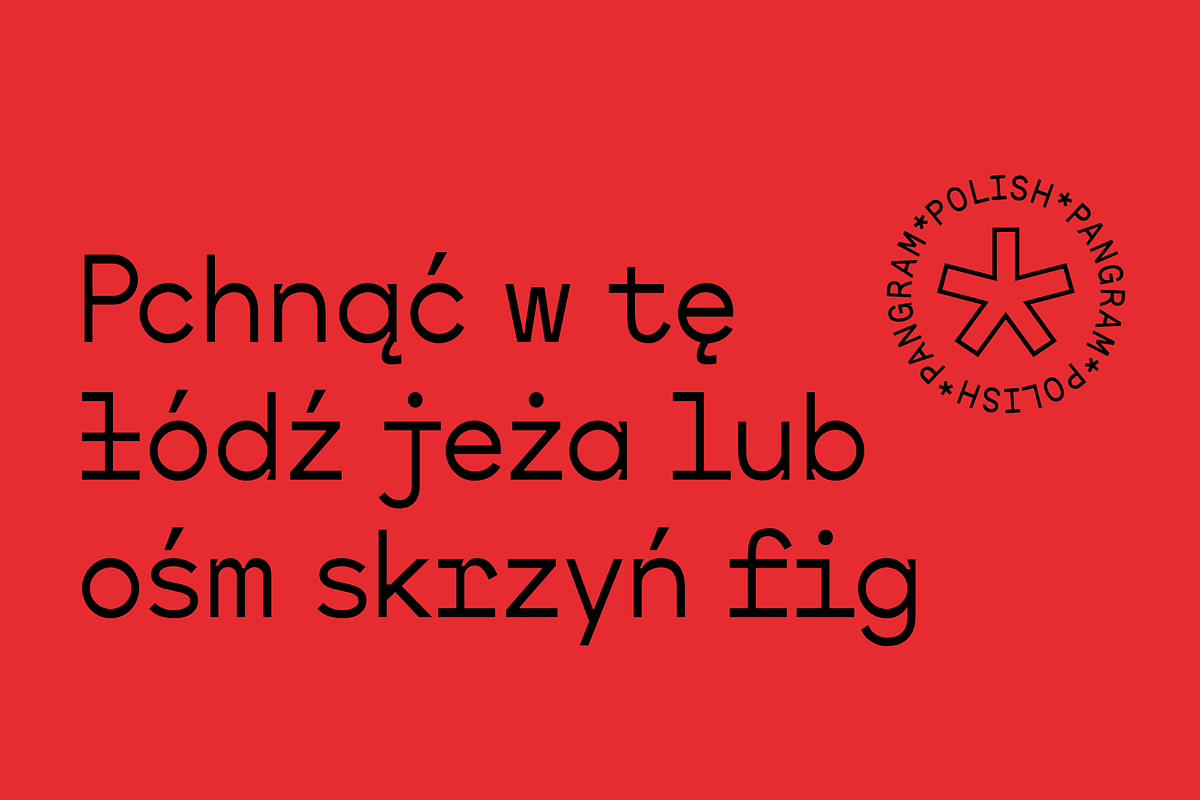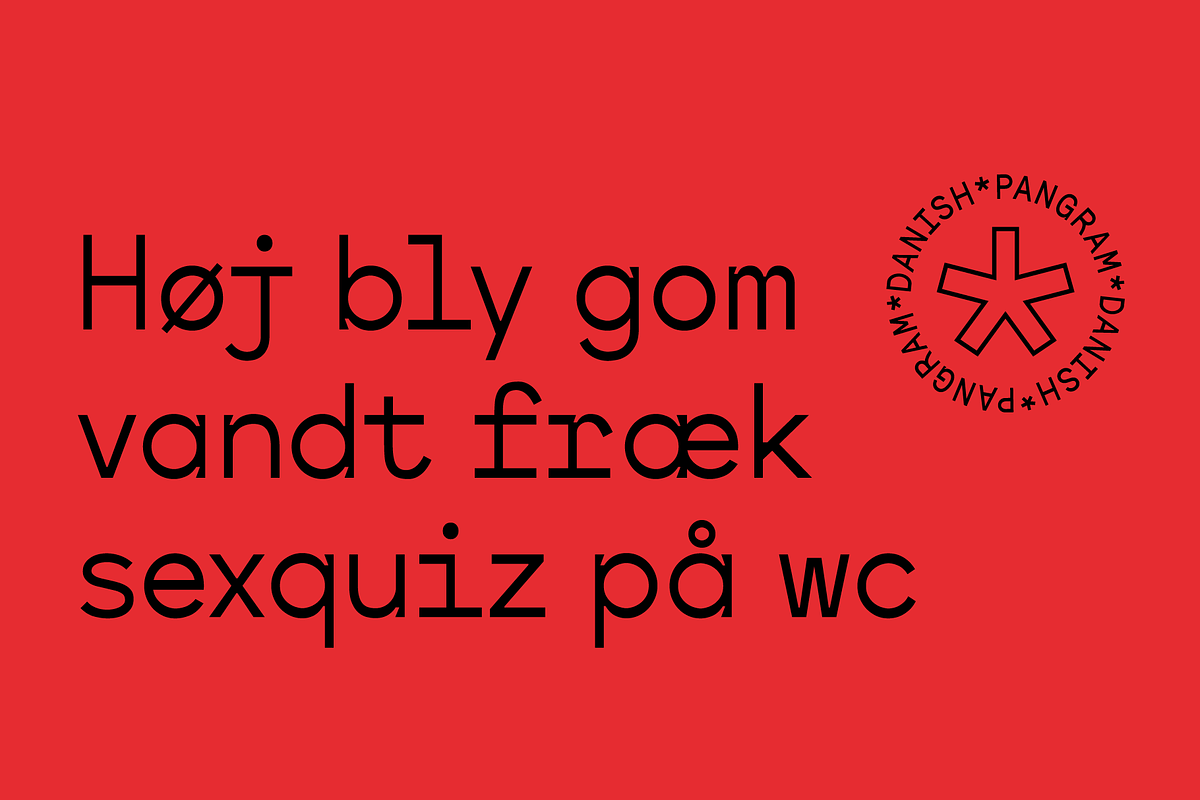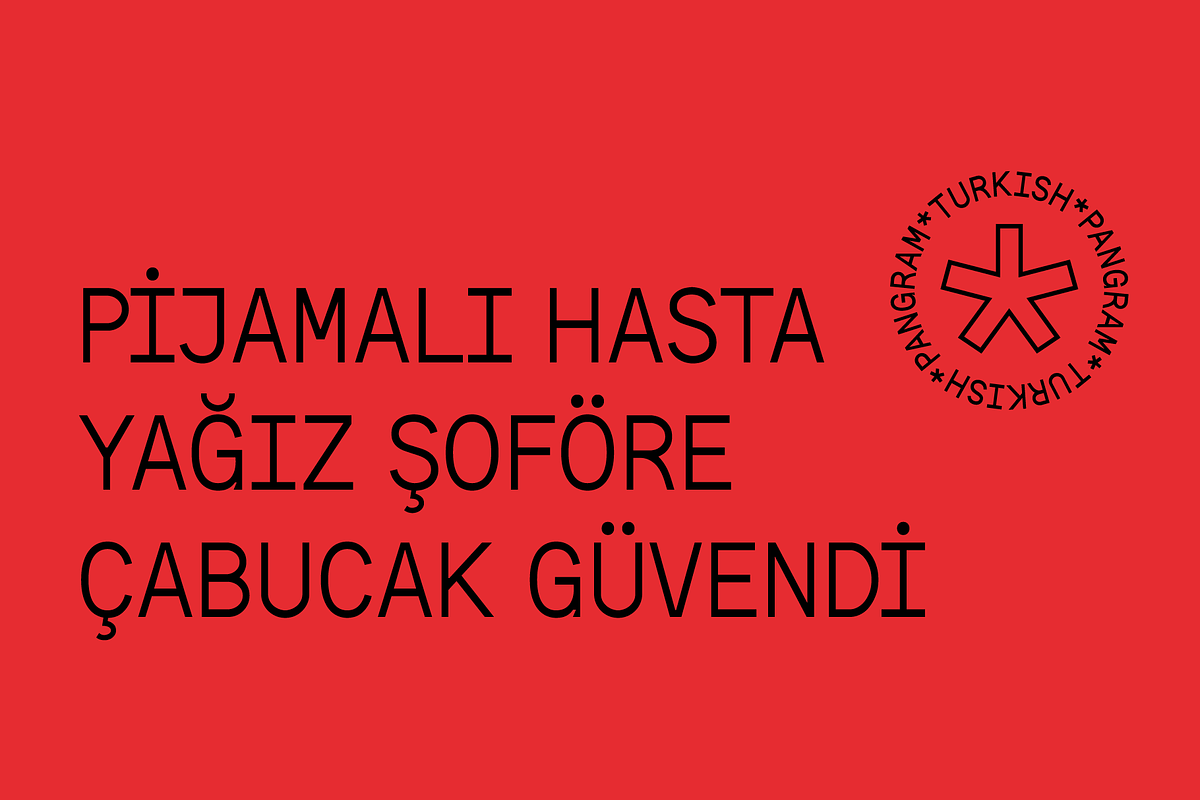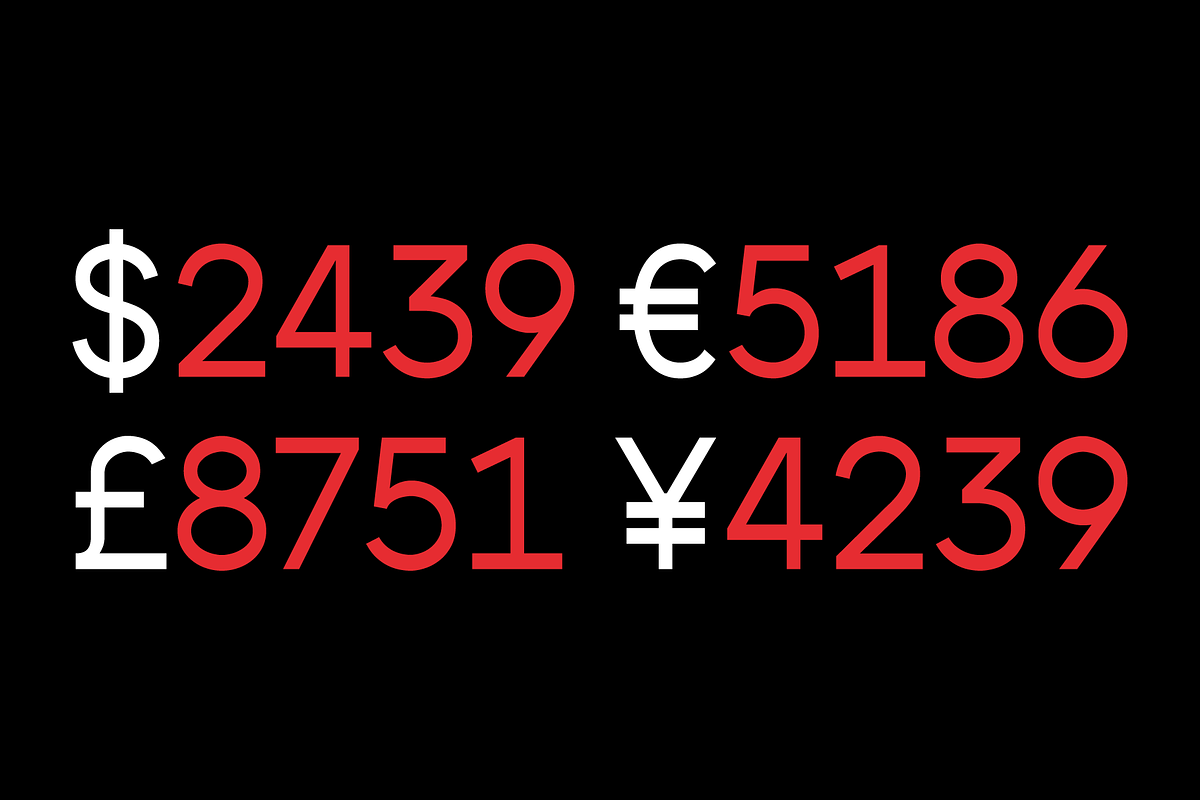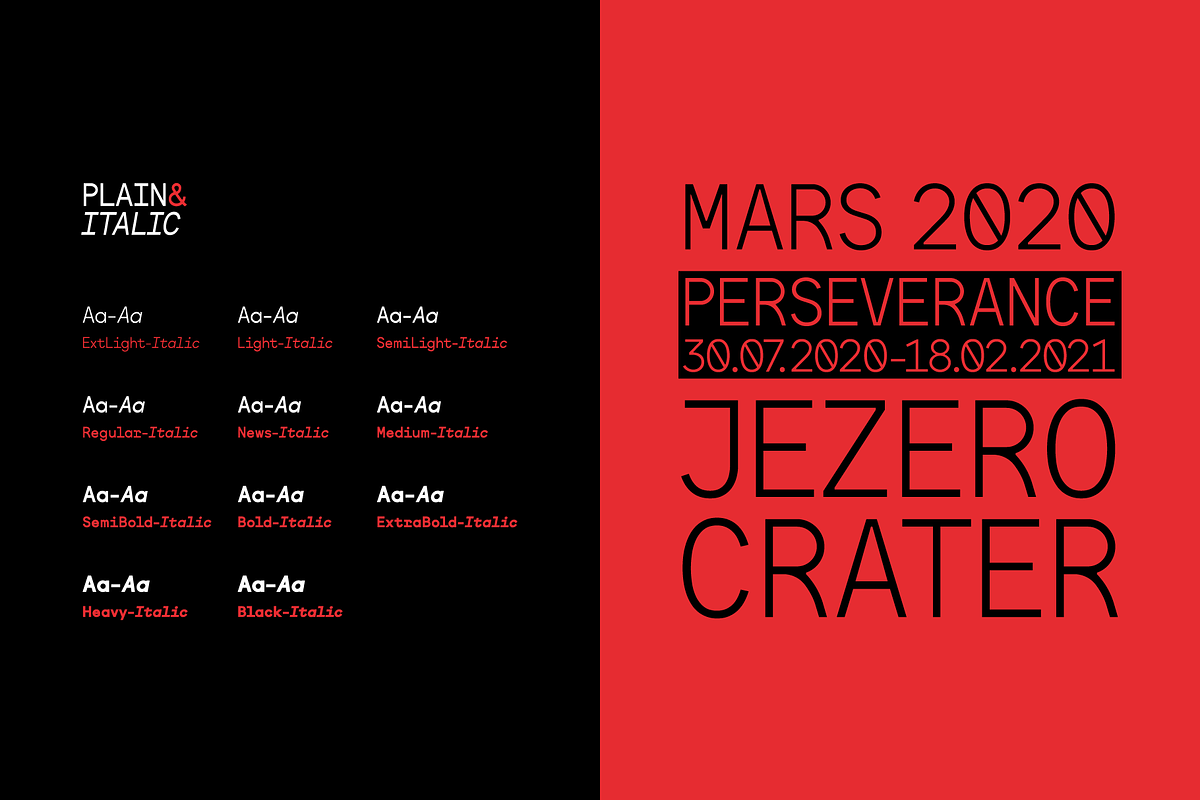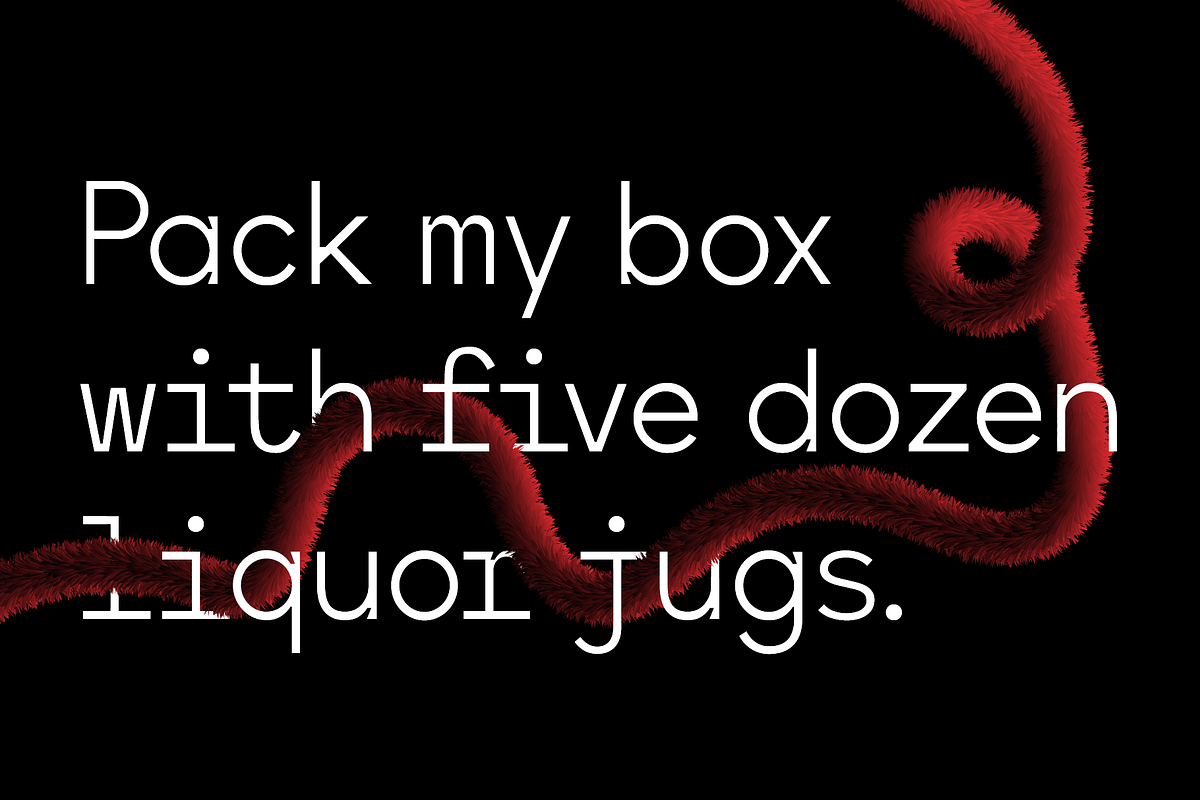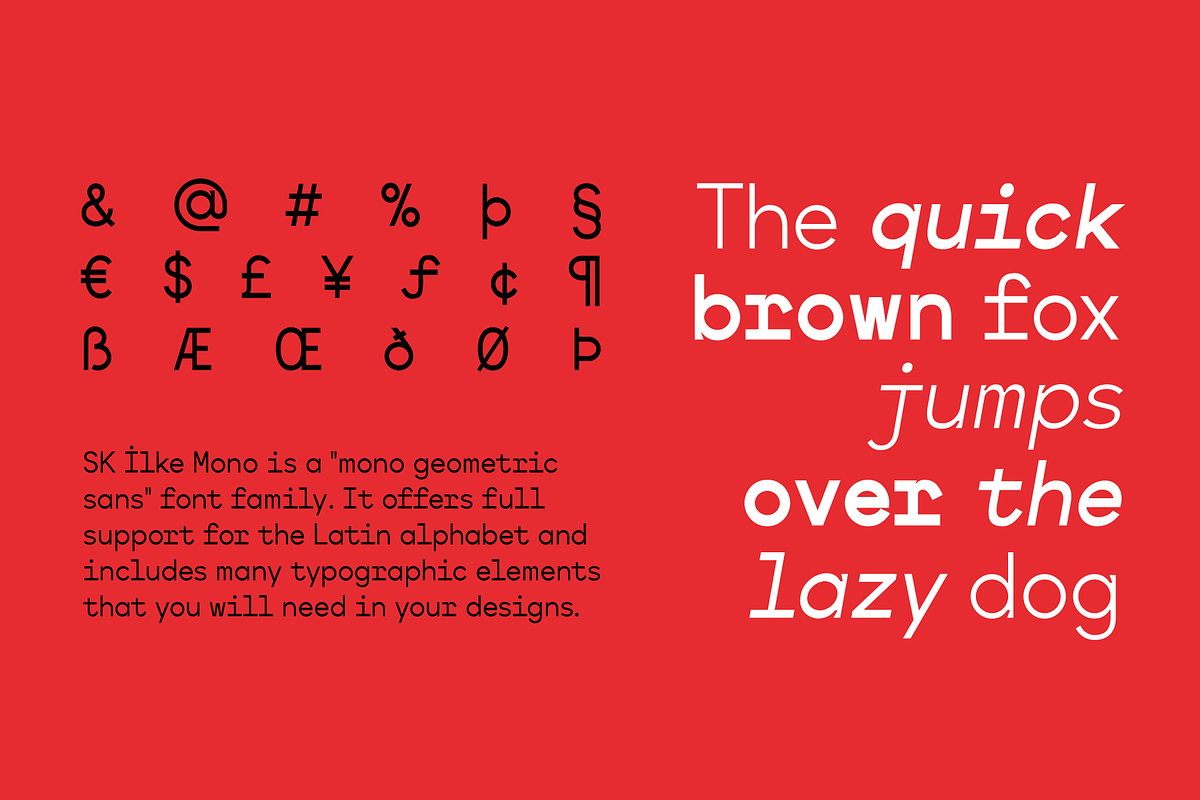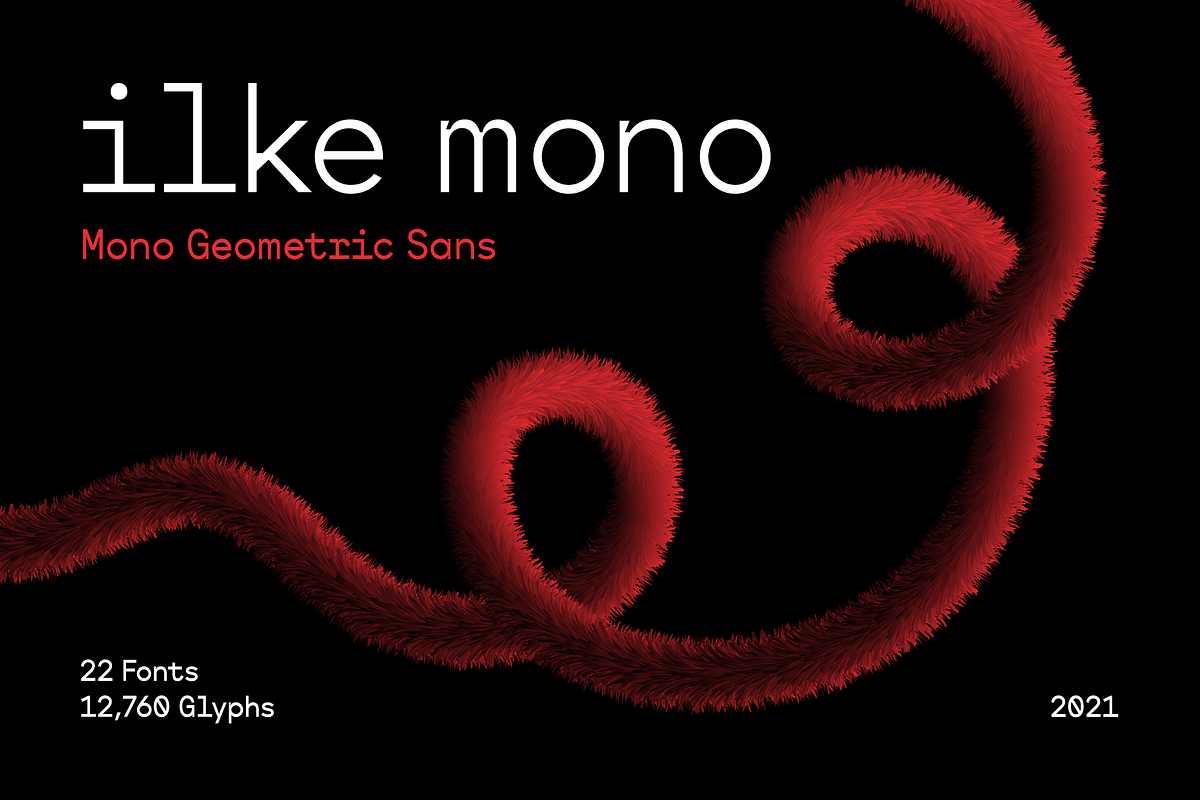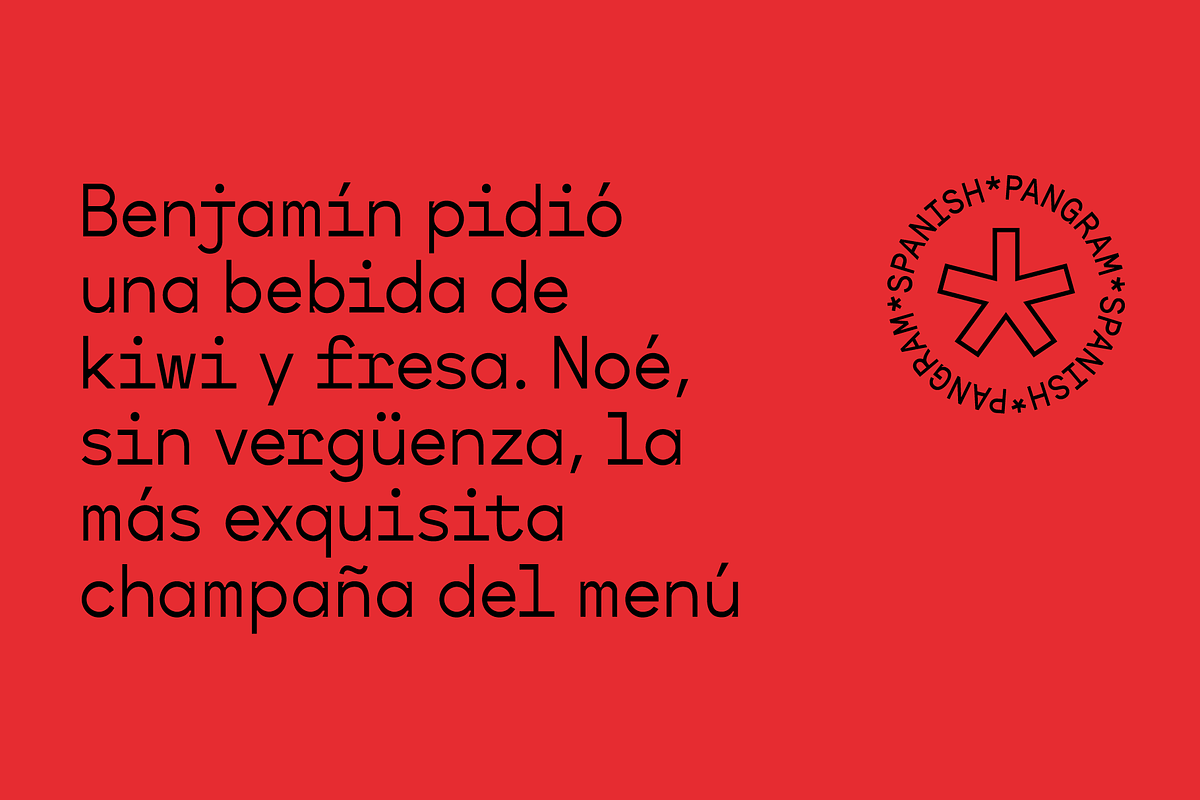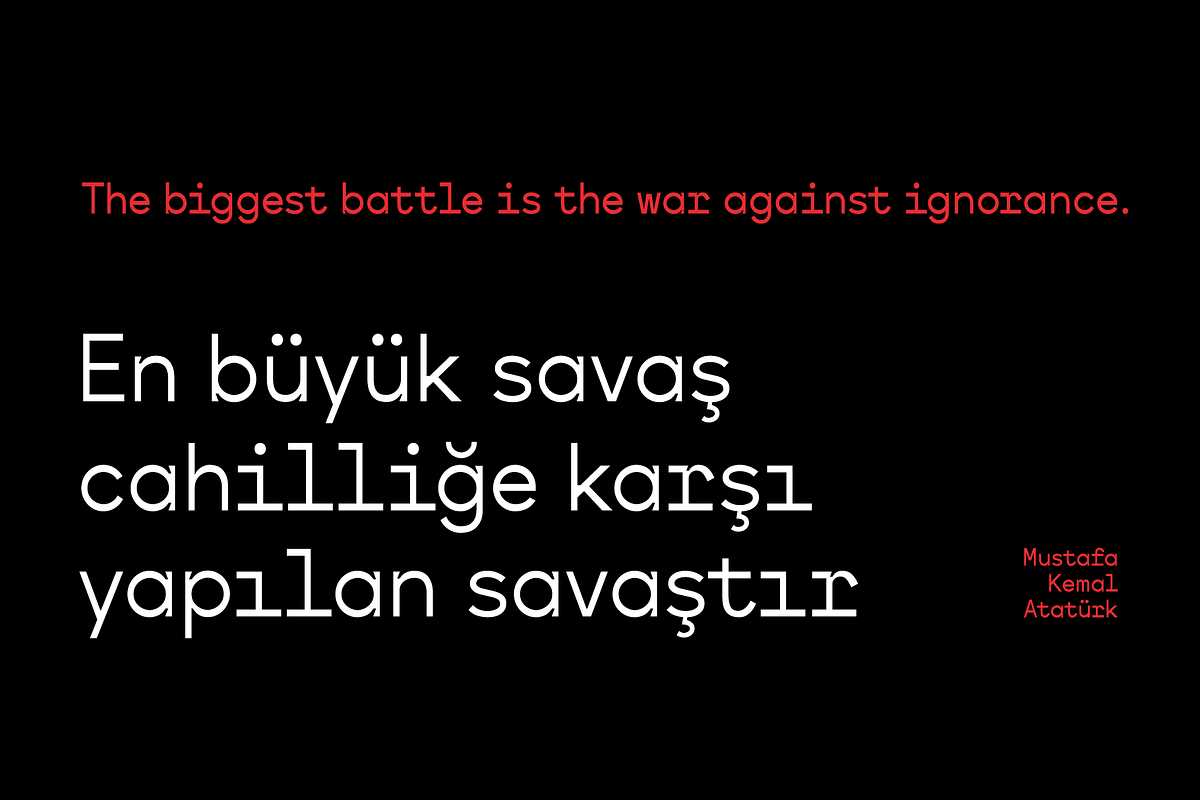
SK Ilke Mono
SK Ilke Mono is a "mono geometric sans" font family. Designed by Salih Kızılkaya in 2021, this font is designed for the needs of designers and software developers. Character ranges and proportions of characters have been specially designed so that you can use it comfortably in any area you want to use mono font.
SK Ilke offers full support for the Latin alphabet and includes many typographic elements that you will need in your designs. It contains 22 different fonts and 12,760 glyphs in total. Each font of this font family contains 580 glyphs. In this way, it offers you all the typographic elements you will need in your designs and aims to meet all your design needs.